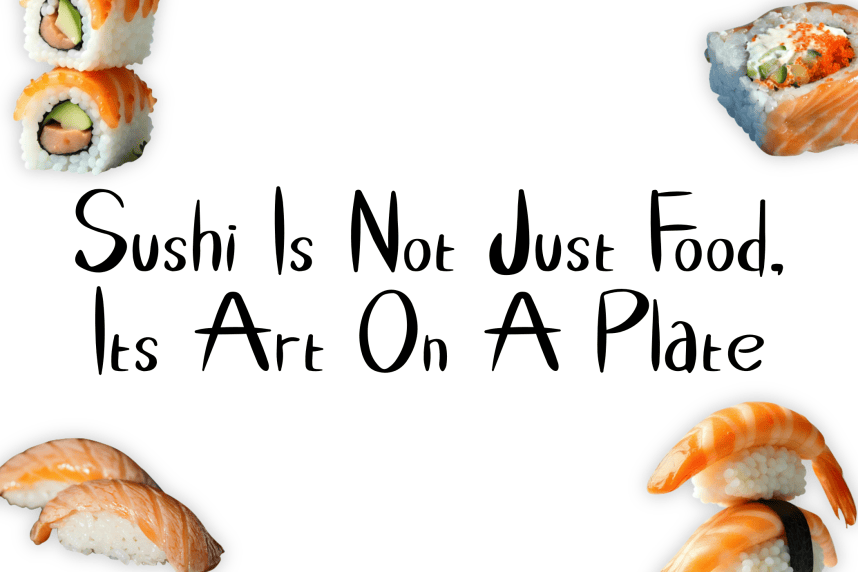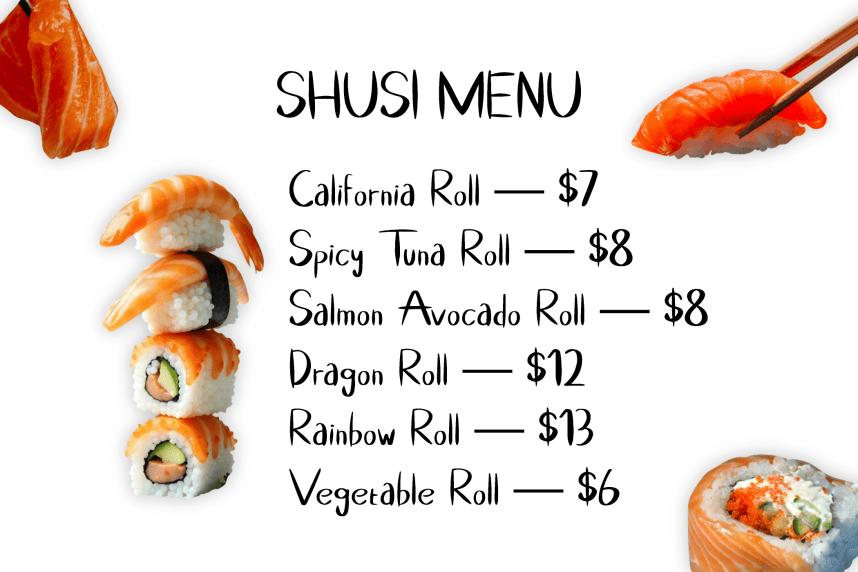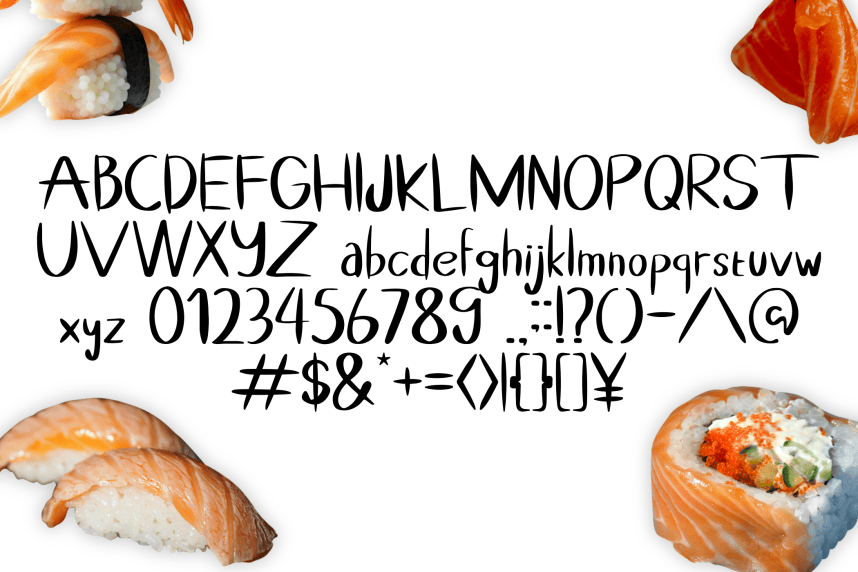
Sushi Menu Handwritten Font
Sushi Menu Handwritten Font – handwritten-style font that adds character to Asian restaurant branding, especially Japanese cuisine. Perfect for menu headings, signage, and packaging that want a clean yet personal touch.